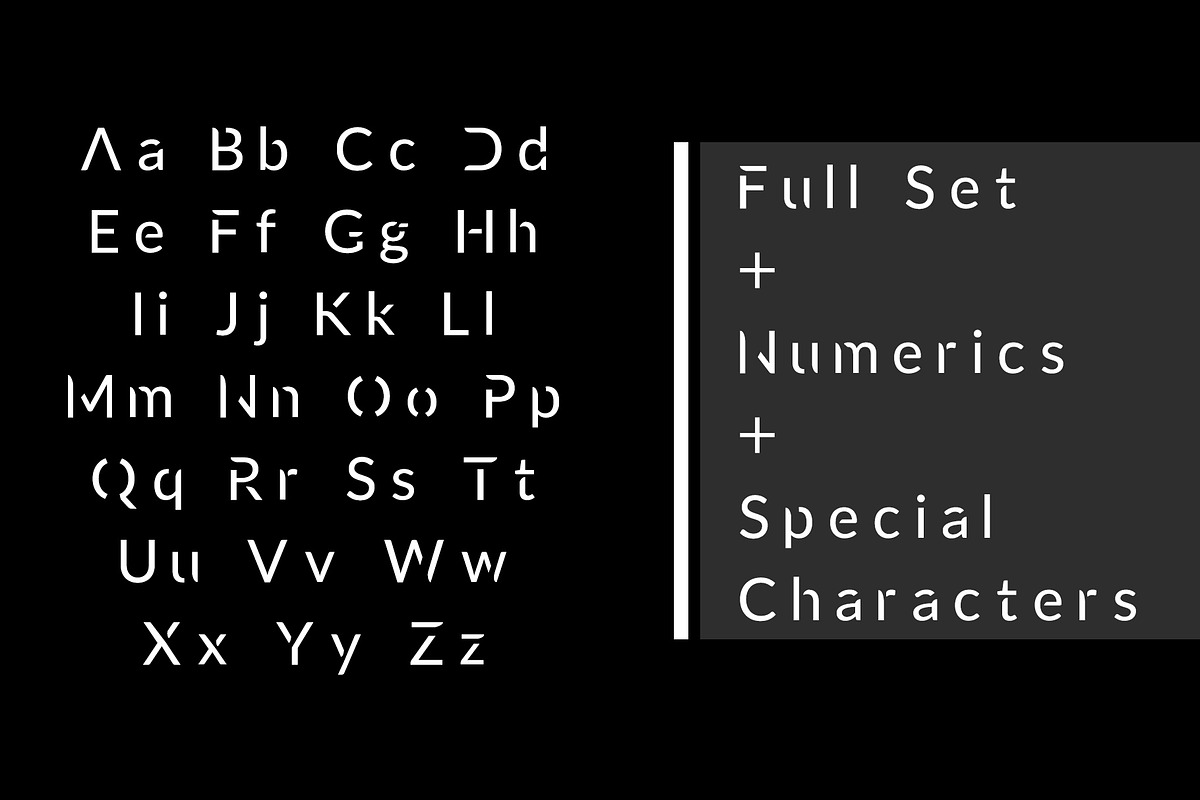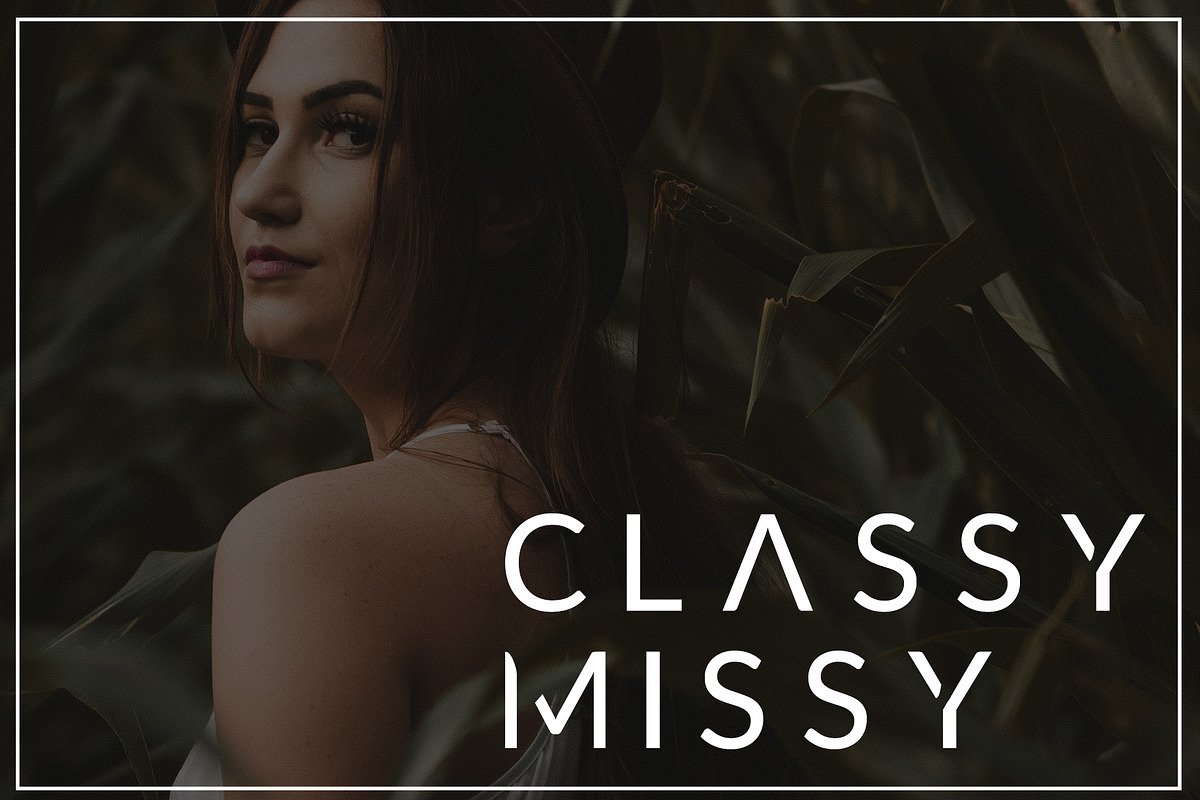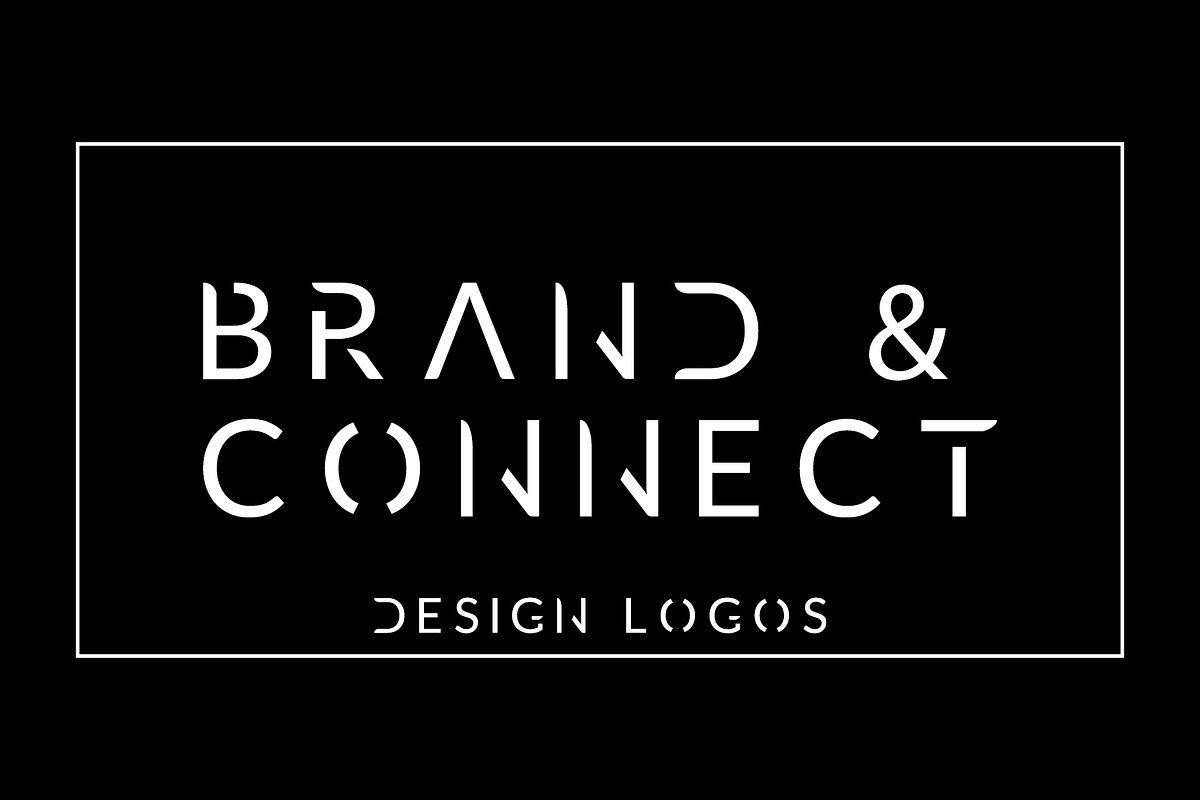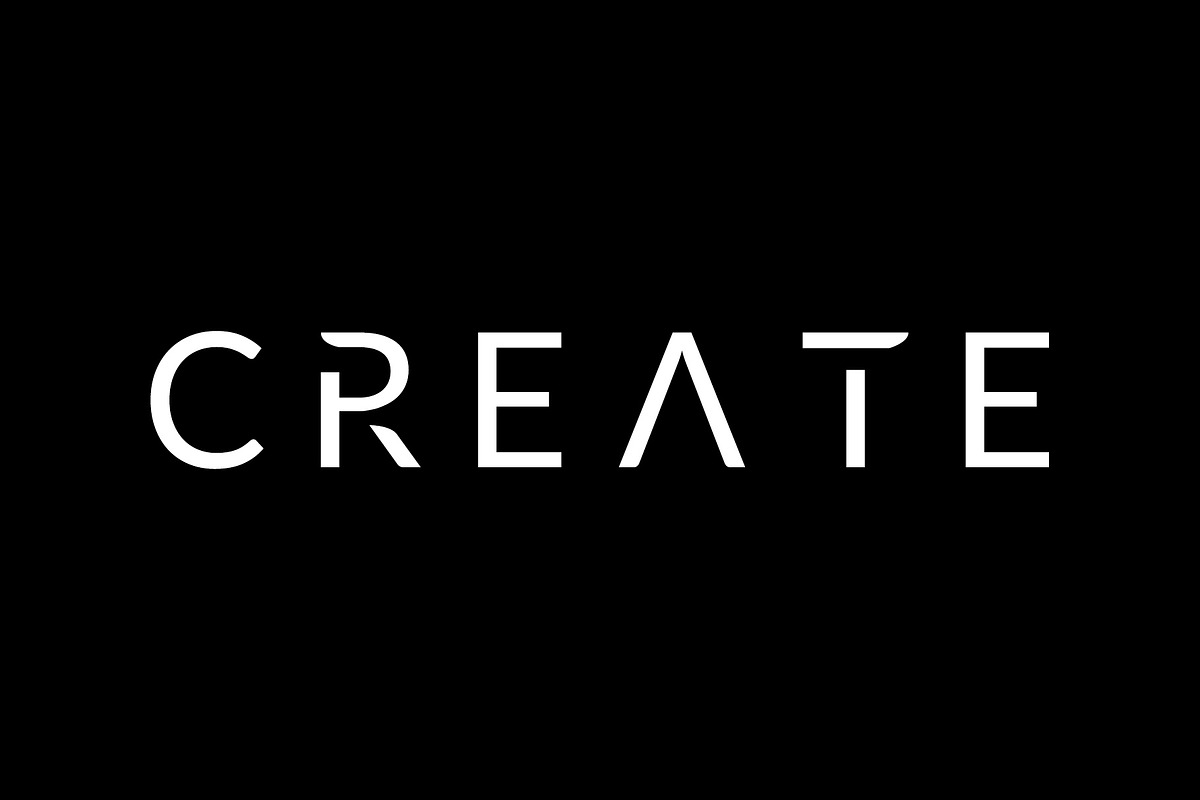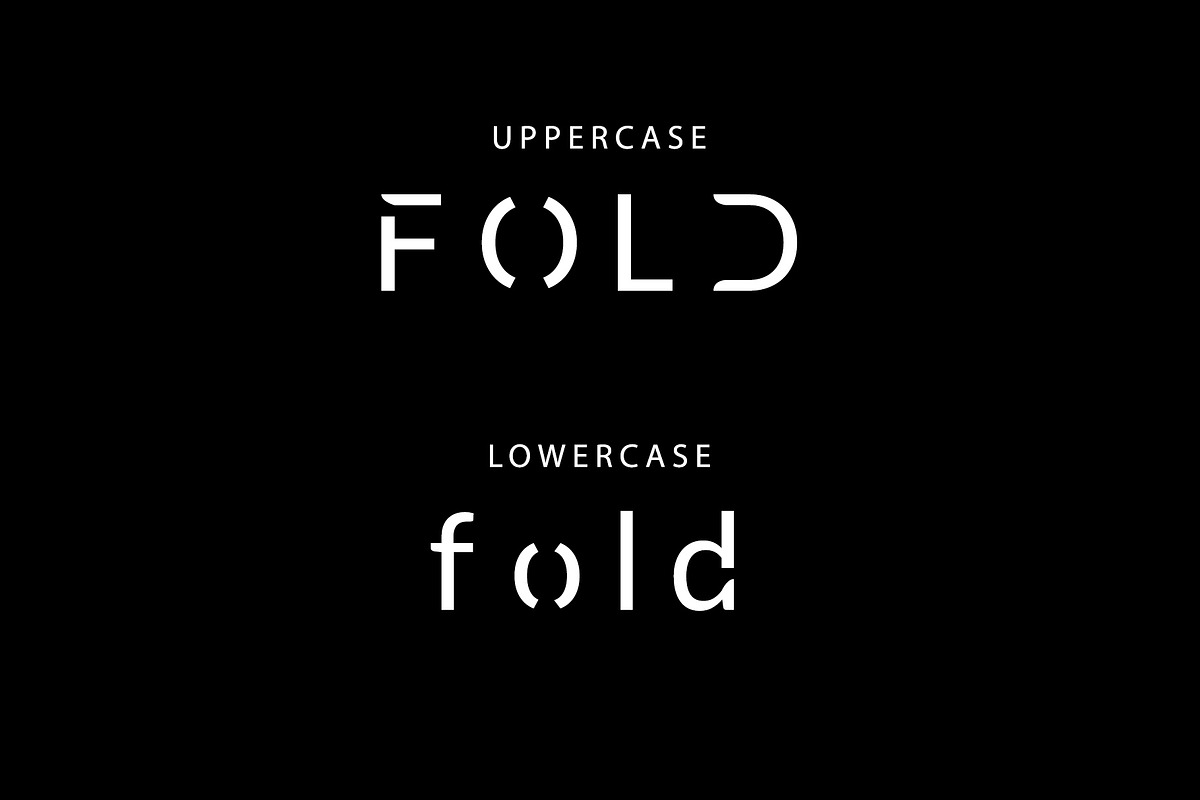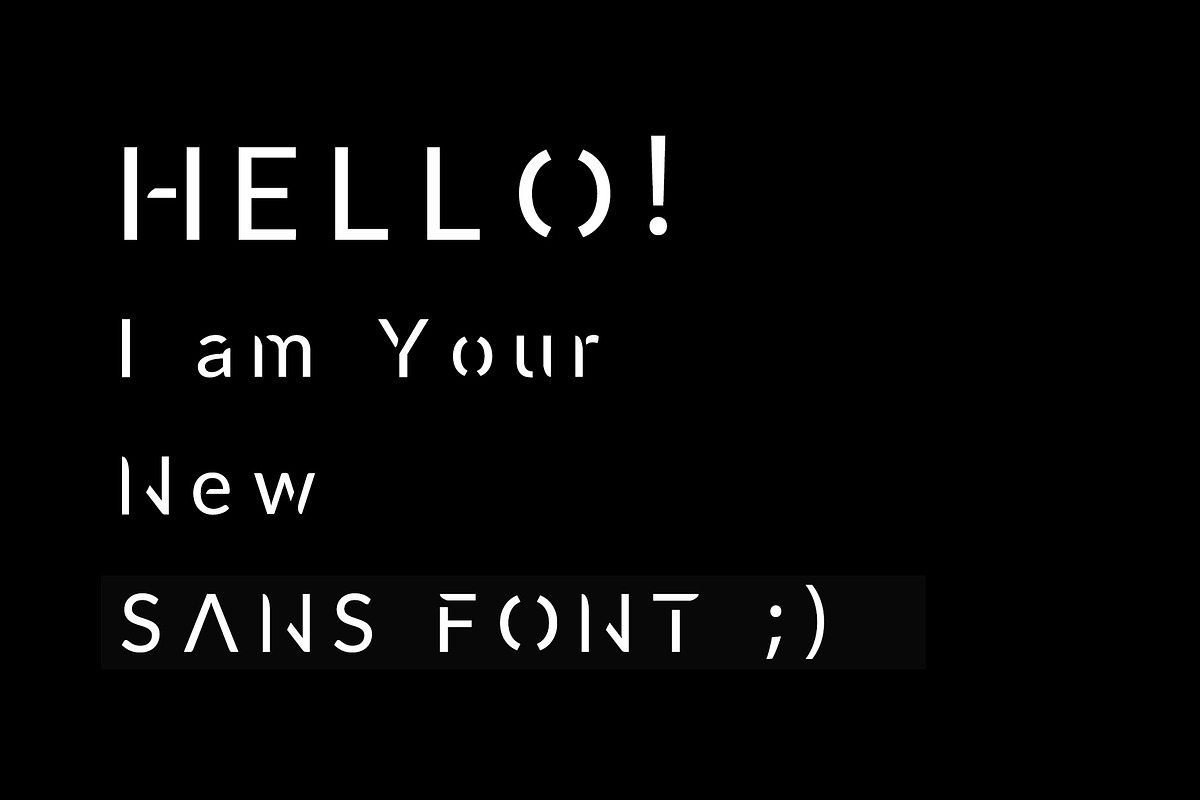
ZAPP Minimal Modern Sans Font
Bringing up New Font - Perfect For YOU! - Perfect For Your Identity - Start Your Venture & Brand with 3D effect illusions style Modern Clean Font - ZAPP
Complete set of Alphabets | Numerals | Special Characters
Why ZAPP Minimal Modern Sans Font is worth a look
ZAPP Minimal Modern Sans Font by Design Unique fits naturally into Branding, posters, packaging, typography.